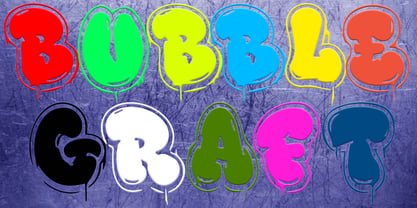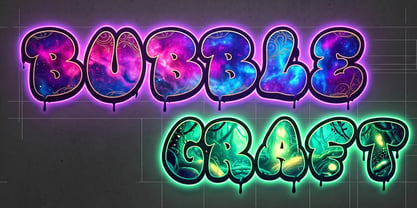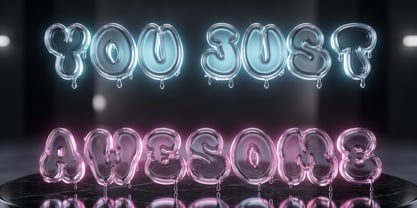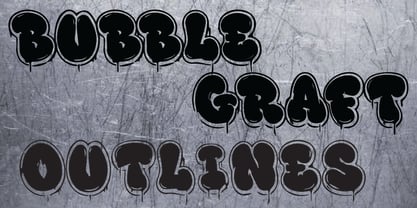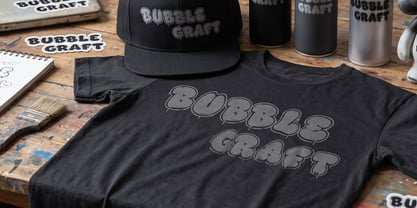
Bubble Graft
von Randy Studio
Die Schriftfamilie Bubble Graft wurde von Randy Prince entworfen und von Randy Studio veröffentlicht. Bubble Graft enthält 2 Stile und Familienpaketoptionen. Mehr über diese Familie
Elevate your creative project's visual identity to the next level with the Bubble Graft Font.
a premium digital font collection defined by a dynamic, high-energy urban character. Expertly crafted by professional designers, this font offers maximum versatility across various media, ranging from merchandise designs, streetwear posters, and album covers to attention-grabbing modern digital content.
A key highlight of this product is the inclusion of two exclusive styles: an outline style that creates a sharp, dimensional look, and a no-outline style for a clean, bold, and solid appearance.
Every character is precision-crafted to ensure optimal readability while maintaining an authentic street-art aesthetic.
This font is suitable for:
- Apparel designs
- Hats
- Tattoos
- Digital projects, and more.